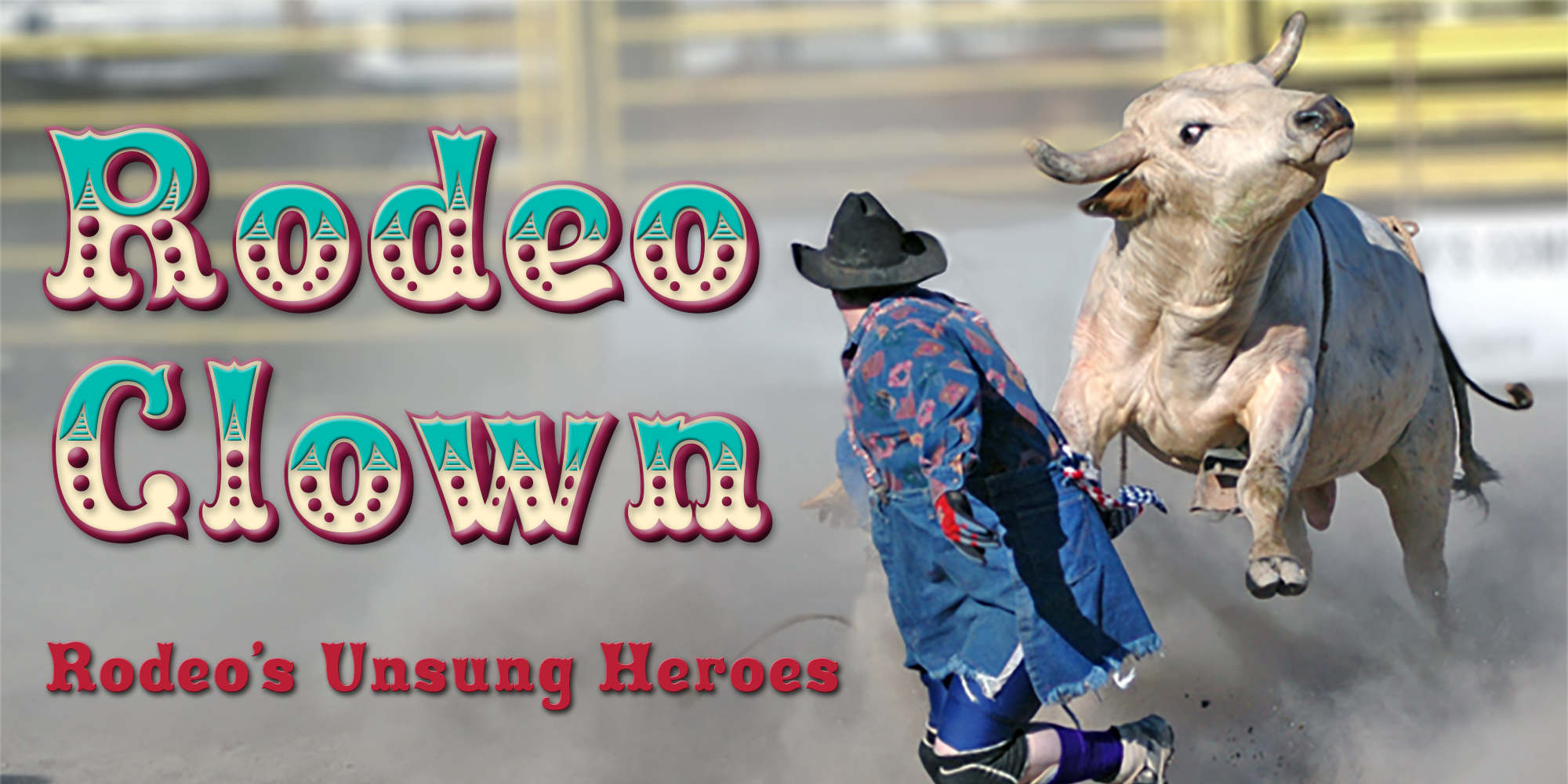
The Rodeo Clown Font is incredibly versatile, making it an excellent choice for a wide array of design projects that aim to capture a fun, whimsical, and distinctly American West or circus-inspired aesthetic. Imagine it bringing a playful energy to event posters for fairs and festivals, making t-shirt designs pop with personality, or adding a charmingly rustic touch to branding for family-friendly entertainment. It's also fantastic for creating engaging children's book titles, unique party invitations, and eye-catching signage for local businesses. Its inherent cheerfulness and bold presence make it perfect for any project looking to communicate excitement, humor, and a spirited, down-to-earth vibe.
What makes Rodeo Clown Font so exciting is its unique blend of playful bounce and clear readability. It often features slightly irregular baselines and chunky letterforms that give it an immediate sense of movement and fun, reminiscent of classic carnival or western typography. This font doesn't just convey text; it performs, making your message feel lively, approachable, and full of character. Its ability to stand out while remaining highly legible ensures that your designs are not only noticed but also easily understood. It's a typeface that brings an infectious, lighthearted spirit to your typography, guaranteeing your projects leave a bright and memorable impression.
The Rodeo Clown Font family typically includes a variety of weights and stylistic options to provide extensive creative flexibility. While specific options can differ, you can generally expect to find alternatives like Regular, Bold, and potentially an Outline or Shadow version to enhance its visual impact. These different weights and styles allow you to create dynamic visual hierarchies and add nuanced flair to your typography, ensuring a cohesive and engaging design. This comprehensive family support ensures that whether you need a strong, playful headline or a subtle, cheerful accent, Rodeo Clown Font Free Download offers the perfect elements to bring your spirited vision to life.